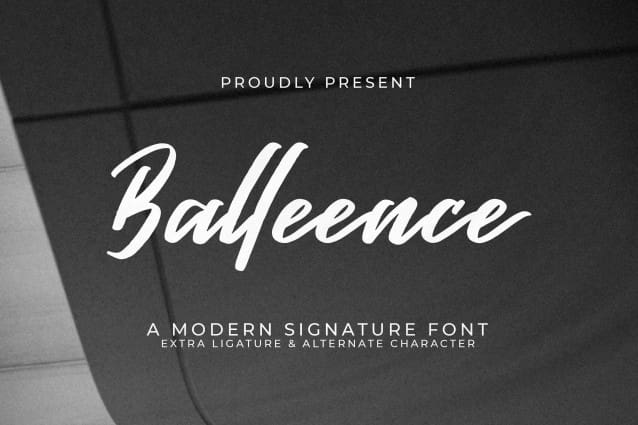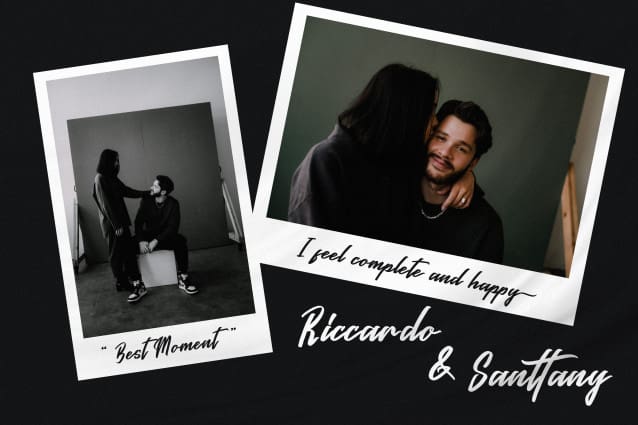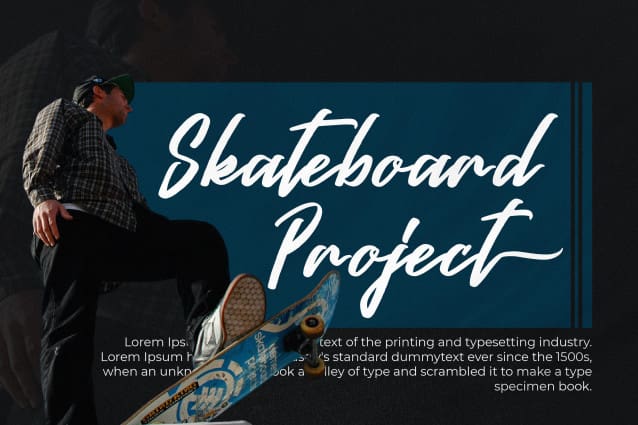
Balleence Script Font
Balleence Script Font – A Modern Signature Font, from Goresan Studio, suitable for any projects such as: logos, branding projects, homeware designs, product packaging, mugs, quotes, posters, shopping bags, t-shirts, book covers, name card, invitation cards, greeting cards, label, photography, watermark, special events, and all your other lovely projects that need a beautiful script taste.